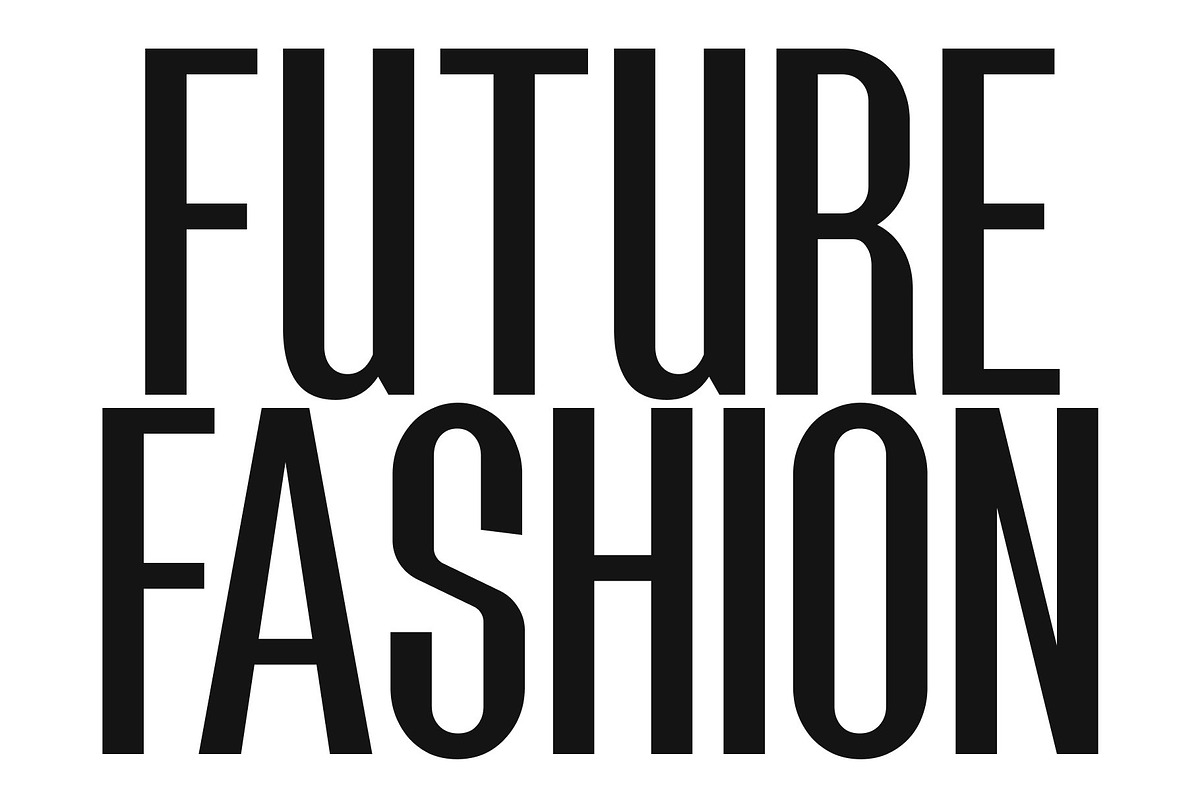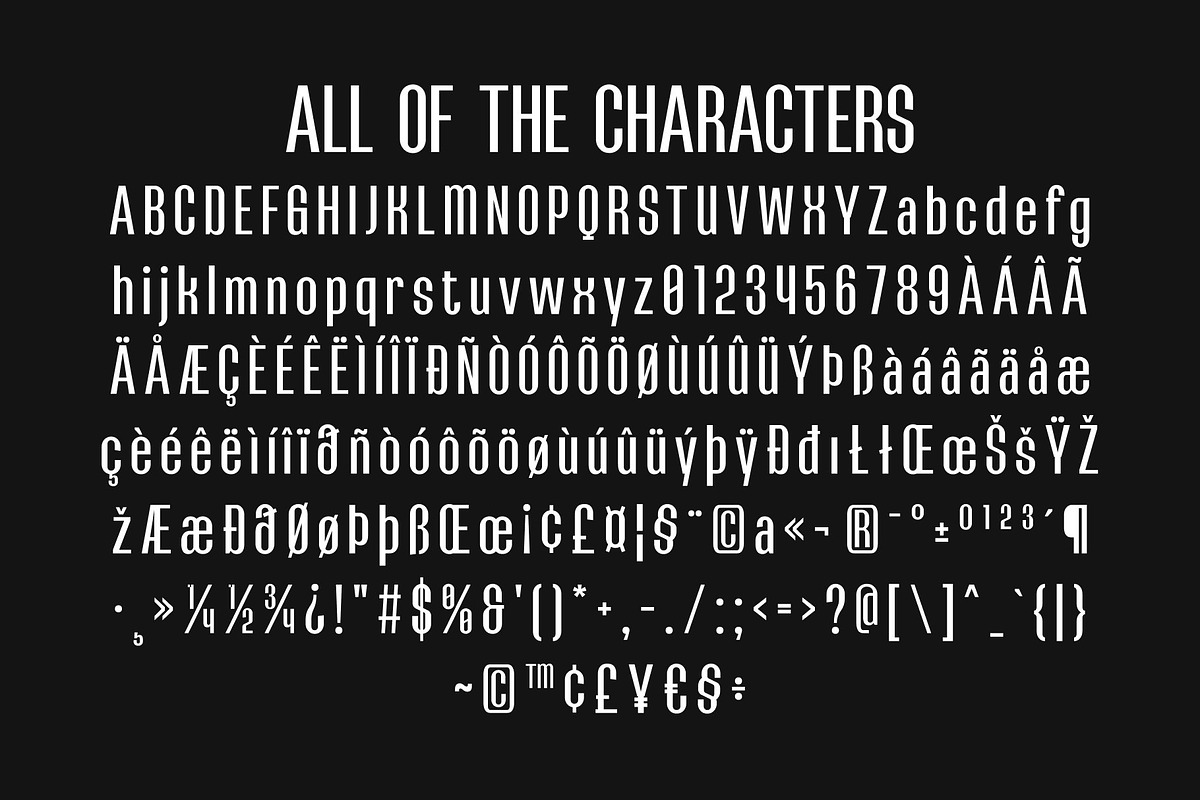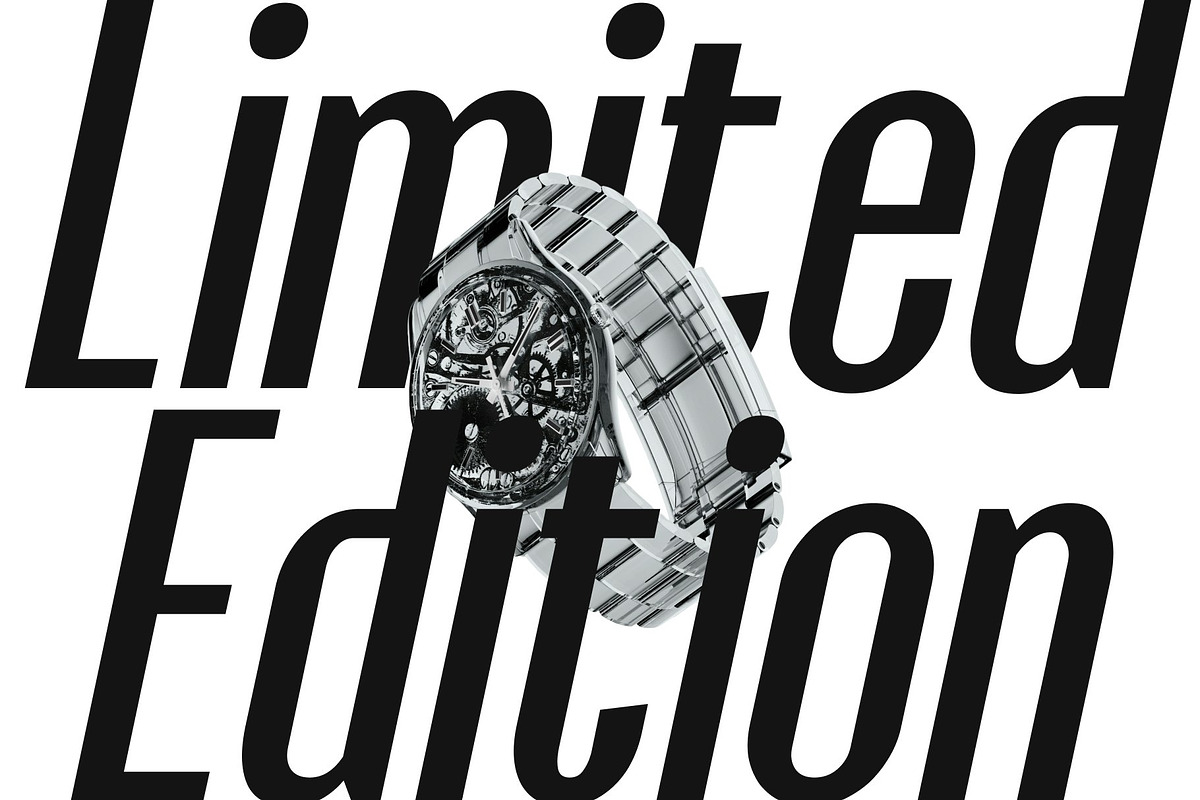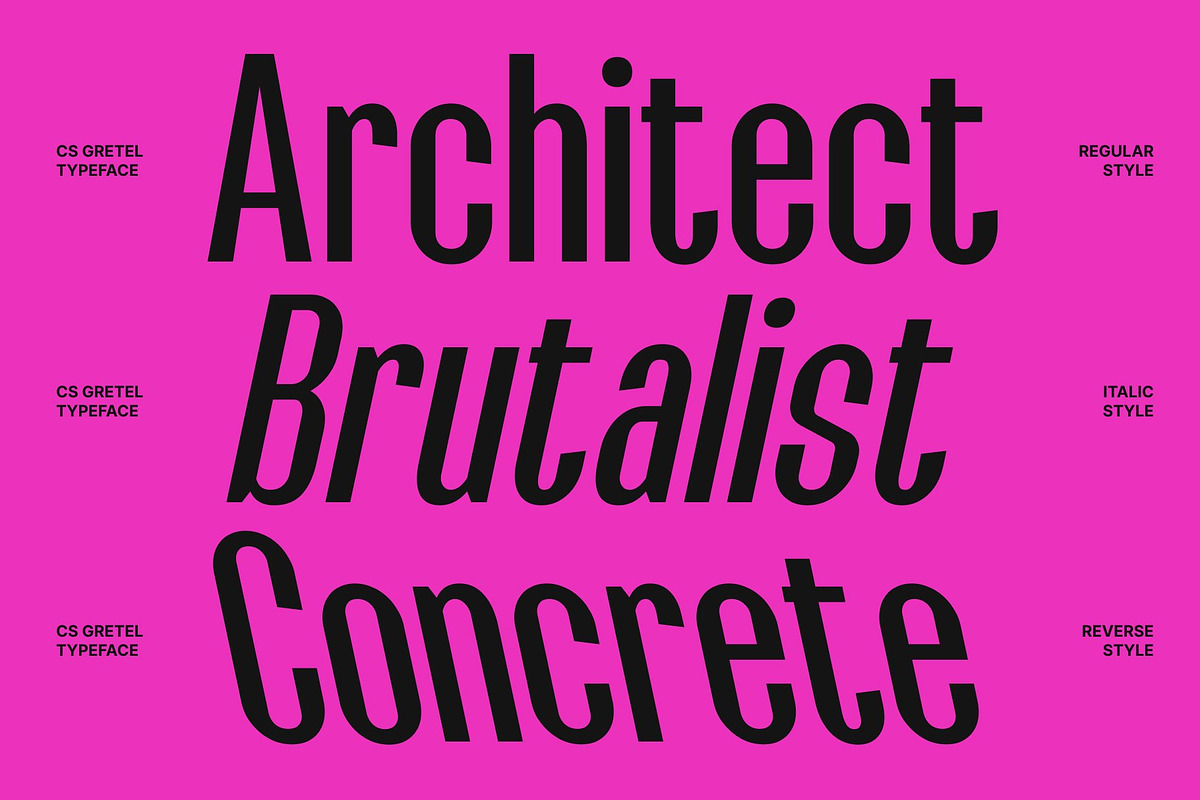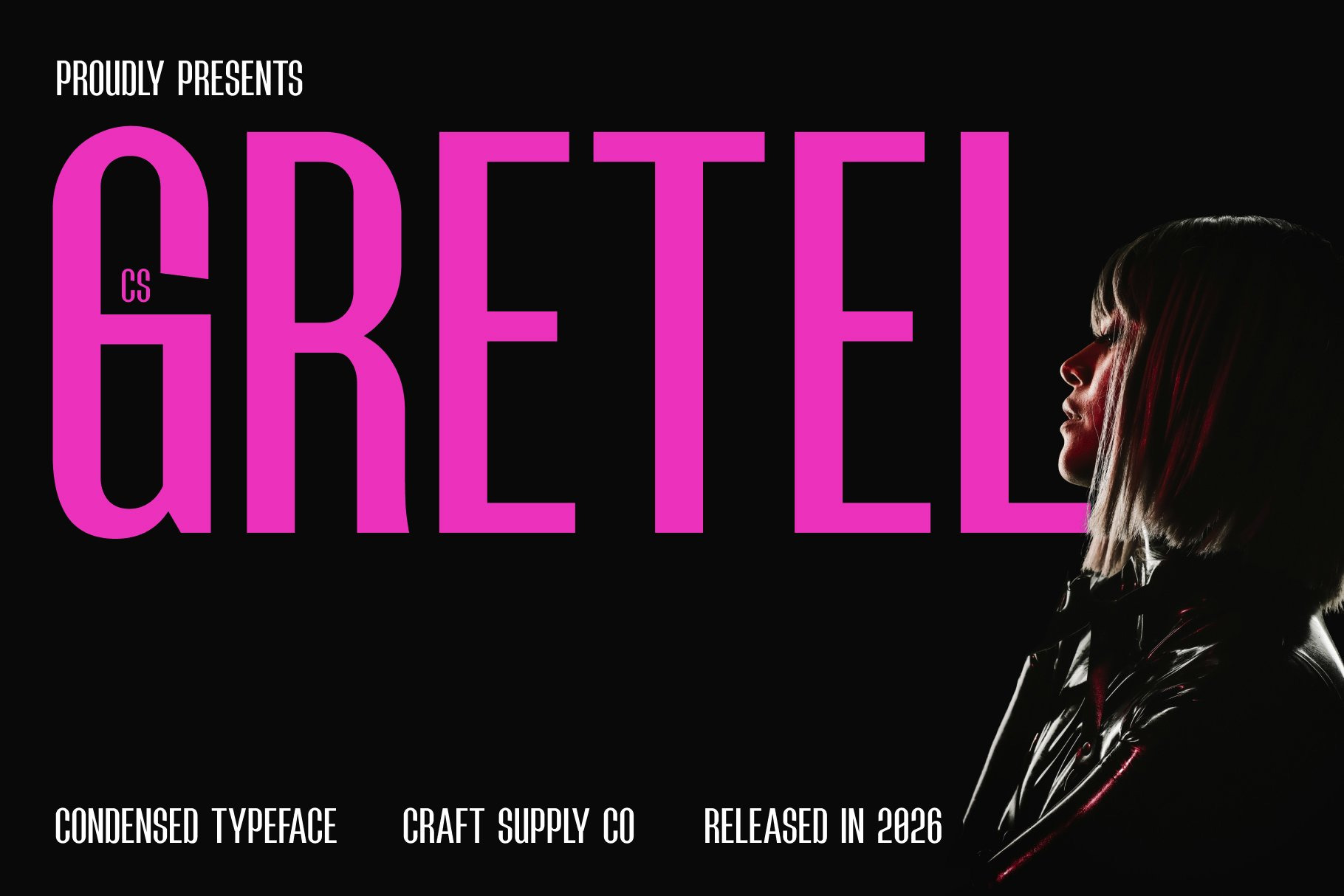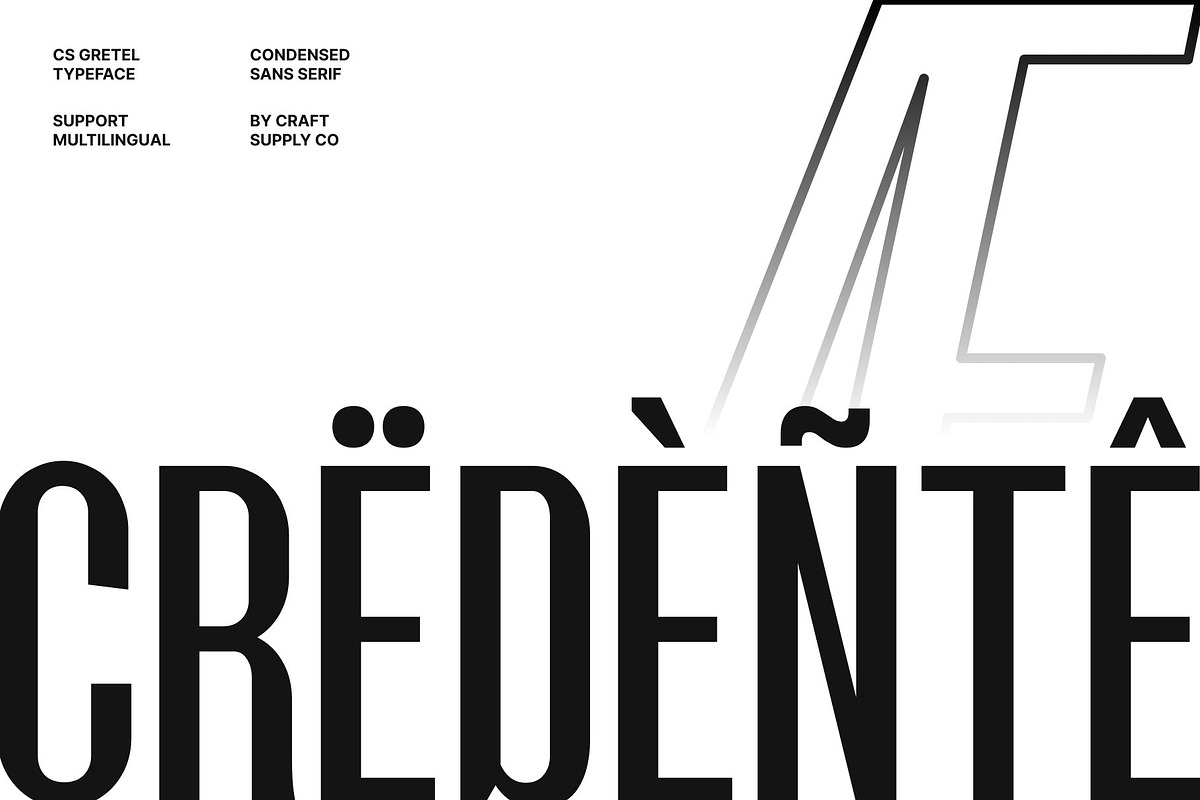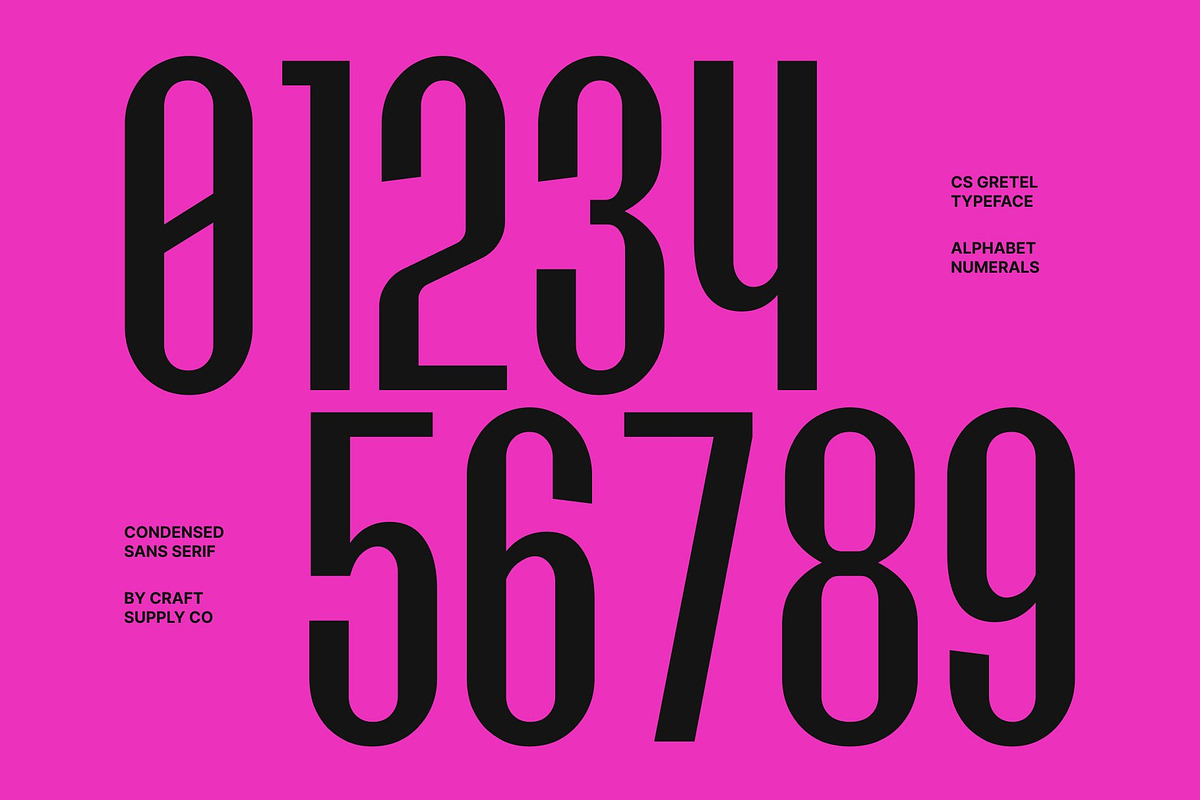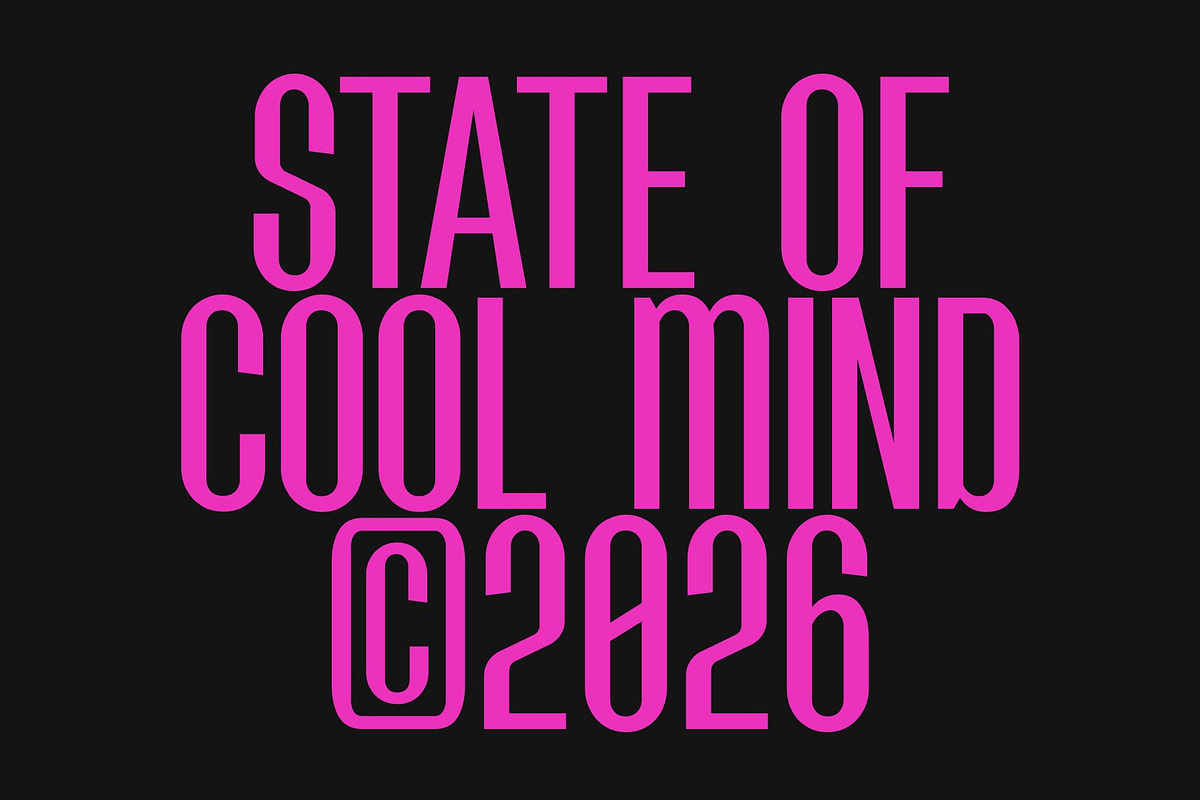
CS Gretel – Condensed Font
CS Gretel – Condensed Display Font with Fresh Modern Style
Condensed Display Font with Contemporary Appeal This is a condensed display font designed to bring a fresh and modern voice to bold typography. With its sleek proportions and clean structure, this typeface creates a striking presence while maintaining clarity and balance. It is crafted for designers who want their headlines to feel contemporary, stylish, and instantly eye-catching.
Designed for Compact and Impactful Layouts The condensed form allows text to fit efficiently into tight spaces without sacrificing readability. Each letterform is carefully shaped to appear tall, streamlined, and easy to read, making this font perfect for dense layouts and large titles. This efficient design ensures your message remains strong and visually organized.
Clean Shapes with Modern Personality This font combines smooth lines with a confident structure, resulting in a look that feels fresh and versatile. The modern character keeps the font adaptable across different visual styles, from minimal compositions to bold graphic layouts. Its clarity and simplicity help designs feel polished and professional.
Perfect for Headlines, Posters, and Branding From striking posters and editorial headlines to branding and digital campaigns, this font delivers a dependable and contemporary typographic solution. Its condensed proportions and fresh design ensure your typography stands out with clarity, style, and modern confidence.
CS Gretel Regular
CS Gretel Italic
CS Gretel Reverse Italic